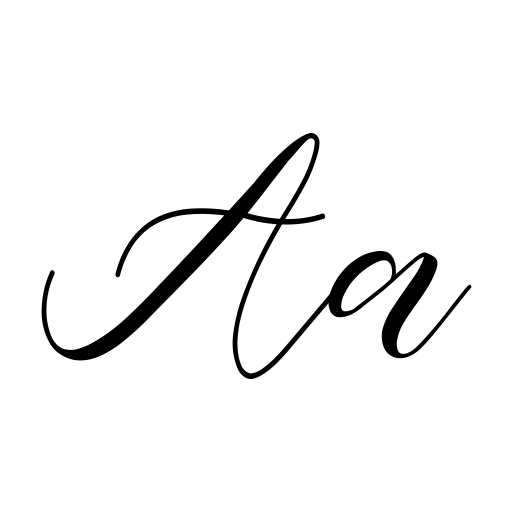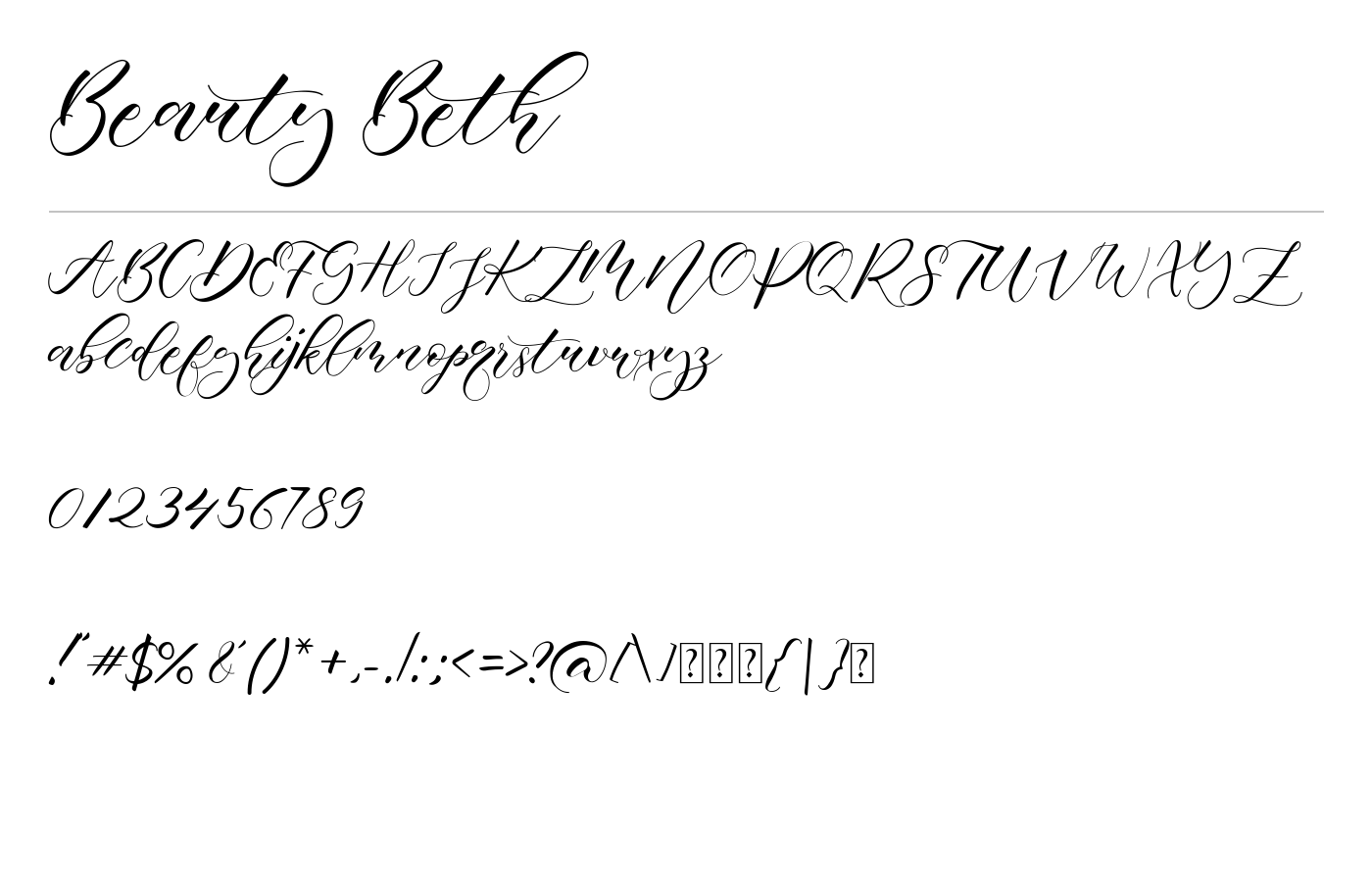
Beauty Beth is an elegant script font with flowing, delicate strokes that evoke a sense of sophistication and romance. Its thin, calligraphic style with graceful swashes and smooth curves makes it perfect for wedding invitations, luxury branding, and feminine design projects seeking a refined and stylish touch. This font shines in large sizes for headlines or logos where its ornamental details can be fully appreciated.
Beauty Beth Font
About Beauty Beth Font
| Font family | Beauty Beth Font |
| Designer | Etigletters 2019 |